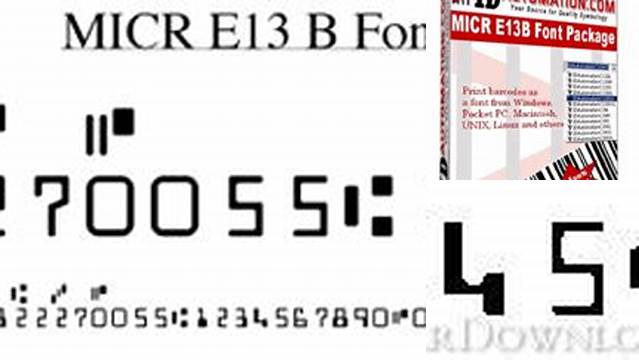
Free E13B MICR Font Download: Your Guide
Hey guys! Ever needed that specific font for those super important checks and documents? We're talking about the E13B MICR font, the one that makes all those magnetic ink characters look so official. Finding a reliable and free download can be a bit of a treasure hunt, so let's dive into everything you need to know. This comprehensive guide will walk you through the ins and outs of this crucial font, ensuring you get the right one and use it correctly. So, buckle up and let’s get started!
What is the E13B MICR Font?
So, what exactly is the E13B MICR font, and why is it so crucial? MICR stands for Magnetic Ink Character Recognition, and the E13B font is the standard typeface used for those funny-looking numbers at the bottom of checks. These characters are printed with a special magnetic ink that allows machines to read them, making check processing super efficient. Without this font, banks and financial institutions would be stuck processing checks manually, which would be a total nightmare! The E13B MICR font isn't just some fancy design; it's a critical component of the modern banking system. Its unique shape and the use of magnetic ink ensure accuracy and prevent fraud, making it a cornerstone of financial security. You might not think about it much, but this font is working hard behind the scenes to keep your money safe and sound. Understanding its significance helps appreciate why getting the right version is so important, guys. It's not just about aesthetics; it's about functionality and security in the financial world.
Why You Need the E13B MICR Font
Okay, let's talk about why you might actually need the E13B MICR font. If you're printing checks, drafts, or any other financial documents that need to be processed by automated systems, this font is non-negotiable. Banks and clearinghouses rely on the magnetic ink and specific character shapes of the E13B MICR font to accurately read and process these documents. Using the wrong font, or even a slightly modified version, can lead to rejection and delays, which can be a major headache. Think about it: if your checks can't be read, payments might bounce, and you could end up with late fees or other penalties. Beyond the practical reasons, using the correct E13B MICR font also demonstrates professionalism and compliance. It shows that you're taking the necessary steps to ensure your financial transactions are handled correctly and securely. For businesses, this is especially important for maintaining a trustworthy reputation. So, whether you're a small business owner, a freelancer, or just someone who prints their own checks, understanding the necessity of this font is key to avoiding potential financial mishaps, guys. It’s all about ensuring smooth and accurate transactions.
The Importance of Correct Font Size and Spacing
Let's drill down on something super important: the correct font size and spacing when using the E13B MICR font. Seriously, guys, this isn't just a matter of aesthetics; it's crucial for the functionality of the font. Remember, the E13B MICR font is designed to be read by machines, not just humans. Banks and financial institutions use automated systems to process checks and other documents, and these systems rely on the precise dimensions and spacing of the characters. If the font size is too small or too large, or if the spacing is off, the machines might not be able to read the characters accurately. This can lead to rejected checks, processing delays, and a whole lot of frustration. The general recommendation for the E13B MICR font is a font size of 12 points, but this can vary slightly depending on the specific software and printer you're using. It's always a good idea to test your printed output to make sure the characters are clear and legible. Spacing is just as critical. The characters need to be spaced correctly so that the magnetic ink readers can distinguish them individually. Too much or too little spacing can cause errors. Pay attention to the kerning (the space between individual characters) and the tracking (the overall space between characters) in your typesetting software. By getting the font size and spacing just right, you're ensuring that your financial documents will be processed smoothly and accurately.
H2: E13B MICR Font and Check 21 Act
The Check 21 Act, officially known as the Check Clearing for the 21st Century Act, is a landmark piece of legislation that has transformed the check processing system in the United States. This act allows banks to create electronic images of checks for clearing purposes, rather than physically transporting the paper checks. How does the E13B MICR font relate to the Check 21 Act, guys? Let's find out. The E13B MICR font is fundamental to the Check 21 Act because it provides the essential information needed to create and process electronic check images. The MICR line, printed with the E13B MICR font, contains the bank routing number, account number, and check number. This data is used to route the electronic check image to the correct bank and account for clearing. The Check 21 Act allows banks to create a